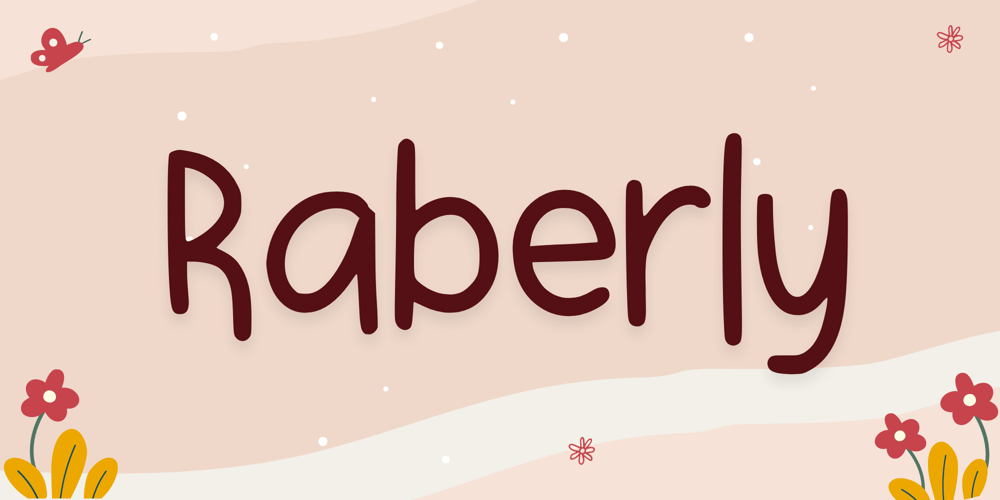
Raberly Font Family was designed by Nur Aiysah Amalia and published by Aisyah. Raberly contains 1 styles and family package options. Introducing “Raberly Handwritten” font, a unique and stylish typeface that blends elegance with a touch of playfulness. Crafted with care and precision, Raberly Handwritten captures the essence of free-flowing ink strokes on paper, giving your projects an artistic flair.